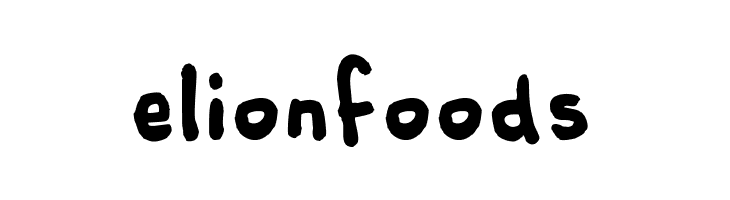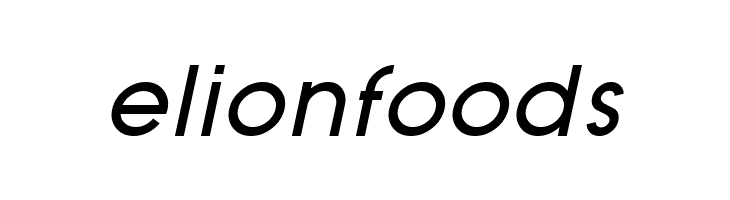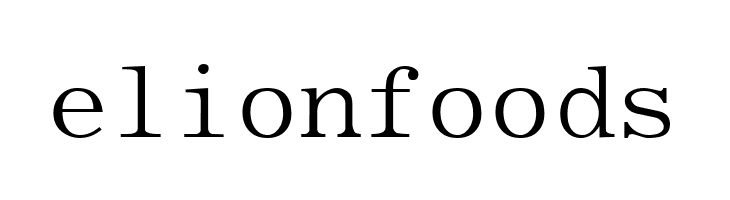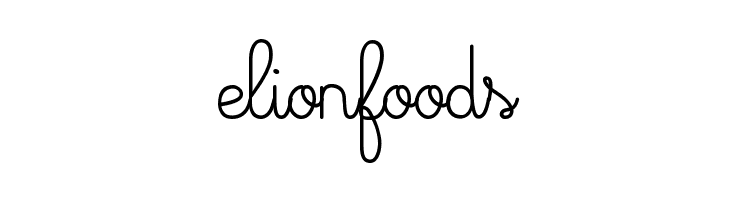
( Fonts by Grzegorz l - www.glukfonts.pl )
An elegant script font with intricate curves and decorative swashes.
( Fonts by Chank Co. - www.chank.com )
A playful, dot-based font with a whimsical and textured appearance.
( Lazy Poony )
A flowing, cursive script font with interconnected characters and a polished look.
A delicate and flowing script font with elegant curves and a polished look.
An elegant cursive font with decorative uppercase and streamlined lowercase letters.
A modern, sleek font with smooth curves and a futuristic aesthetic.
A bold, modern font with a futuristic and cohesive design.
( Fonts by dartcanada.tripod.com - Darren Rigby )
A modern, geometric font with a bold, futuristic style.
( Fonts by www.tepidmonkey.net )
A geometric, modern font with clean lines and a structured appearance.
A sleek, italicized font with a modern and elegant style.
A modern, geometric sans-serif font with a clean and professional appearance.
( Paul Lloyd Fonts )
A modern, condensed font with a sleek, minimalist design.
A chaotic, hand-drawn font with a scribbled, graffiti-like style.
( Fonts by Christine Mauerkirchner and Rainer Grunert - PrimaFont )
An elegant script font with flowing, cursive letterforms and high contrast.